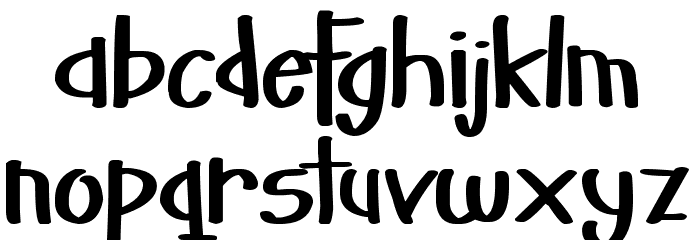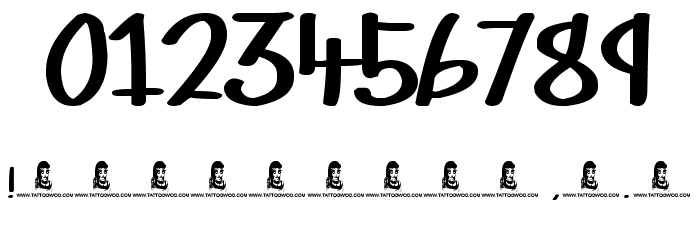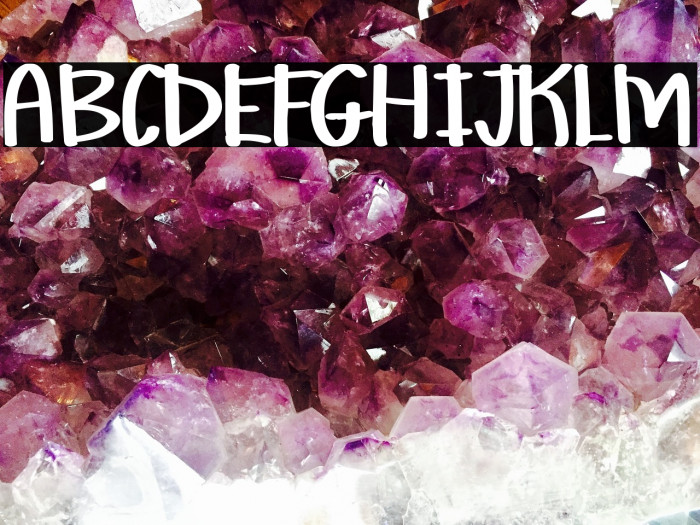
Martian Vacation Font
This font features a playful and casual handwritten style, characterized by its bold and slightly irregular strokes. The letters have a whimsical flair, with varying heights and widths that add a dynamic and lively feel. The uppercase and lowercase letters maintain a consistent style, with rounded edges and a slightly slanted orientation, giving it a relaxed and informal appearance. The numerals and special characters follow the same playful design, making it suitable for creative and fun projects. Its unique style captures attention and conveys a sense of spontaneity and creativity.
A playful, bold handwritten font with a whimsical and casual style.
- Proposed Projects: Ideal for children's books, playful branding, casual invitations, and creative posters.
- Category: Handwritten
- Overall Style: Casual, Playful